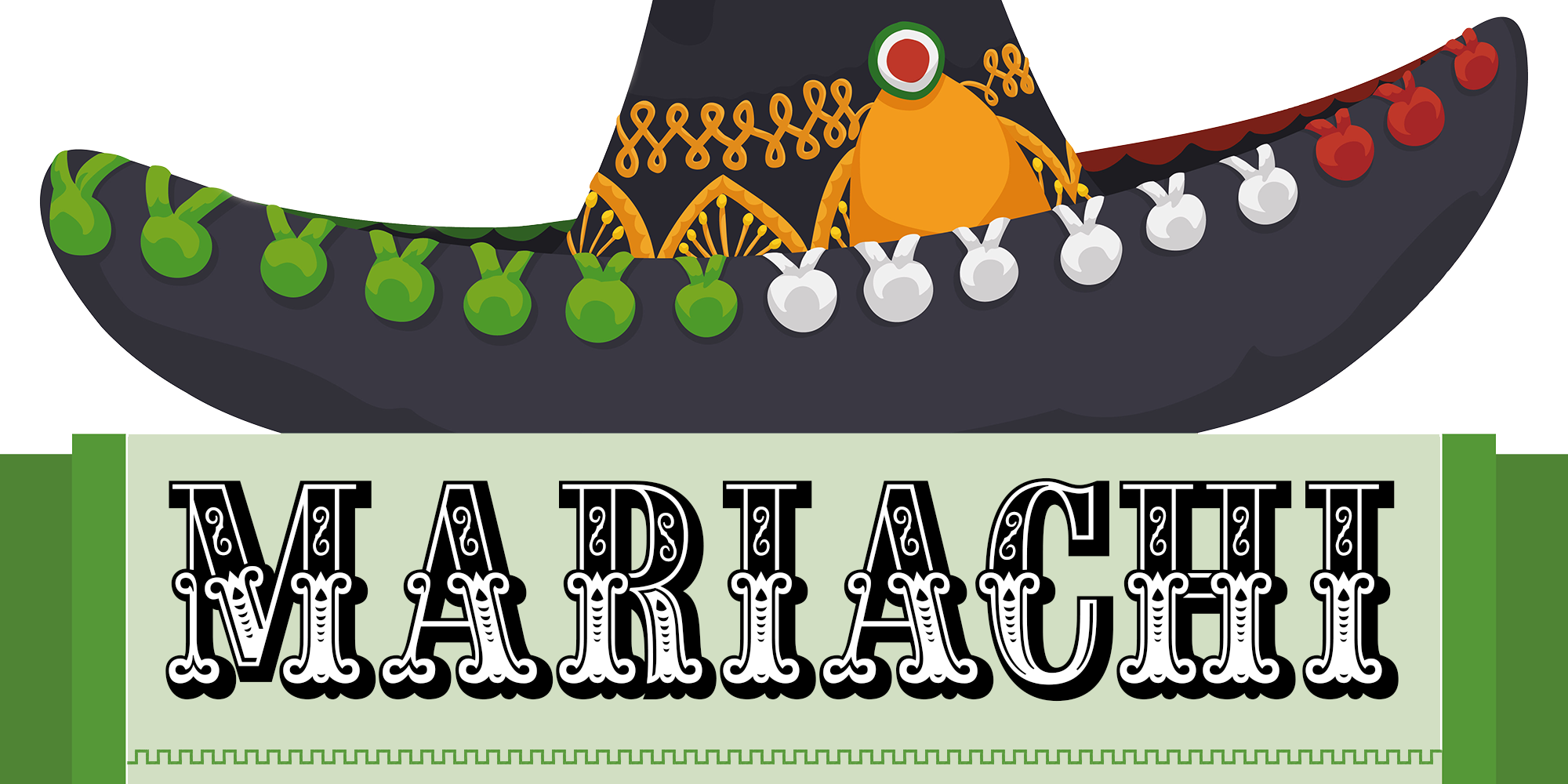
The Mariachi Font is perfect for various design applications including Mexican restaurant branding, fiesta party invitations, tequila bar graphics, Latin music festival posters, Cinco de Mayo promotions, traditional Mexican cuisine menus, cultural celebration materials, and vibrant entertainment venue signage. This festive typeface works exceptionally well for brands celebrating Mexican heritage and projects requiring authentic cultural vibrancy.
What makes Mariachi Font exciting is its passionate and celebratory character that instantly captures the joyful spirit of Mexican culture and traditional mariachi music. The font features bold letterforms with festive flair and cultural authenticity that evoke feelings of celebration, passion, and rich Mexican tradition. Its vibrant styling and spirited appearance make it perfect for brands that want to honor Mexican heritage and create unforgettable festive experiences for their audiences.
The Mariachi Font family includes multiple weights and styles, offering designers flexibility for diverse cultural applications. The family typically consists of regular, bold, decorative, and ornamental variations, along with traditional Mexican design elements and festive flourishes, providing comprehensive coverage for projects that need both authenticity and visual impact across different celebration contexts.
Whether you're working on Mexican restaurant marketing, cultural event promotions, or Latin entertainment campaigns, Mariachi Font Free Download delivers the authentic quality and visual celebration that modern cultural designers seek. The font's mariachi-inspired design combined with its excellent readability makes it an essential tool for creating compelling visual communications that honor Mexican traditions and bring the passionate spirit of mariachi music to life.